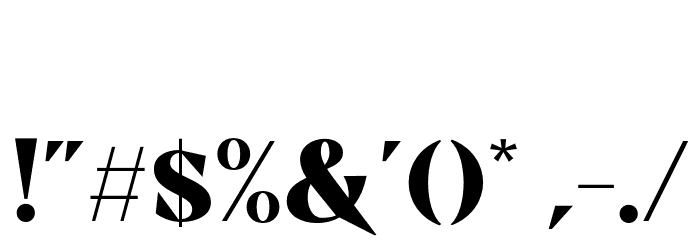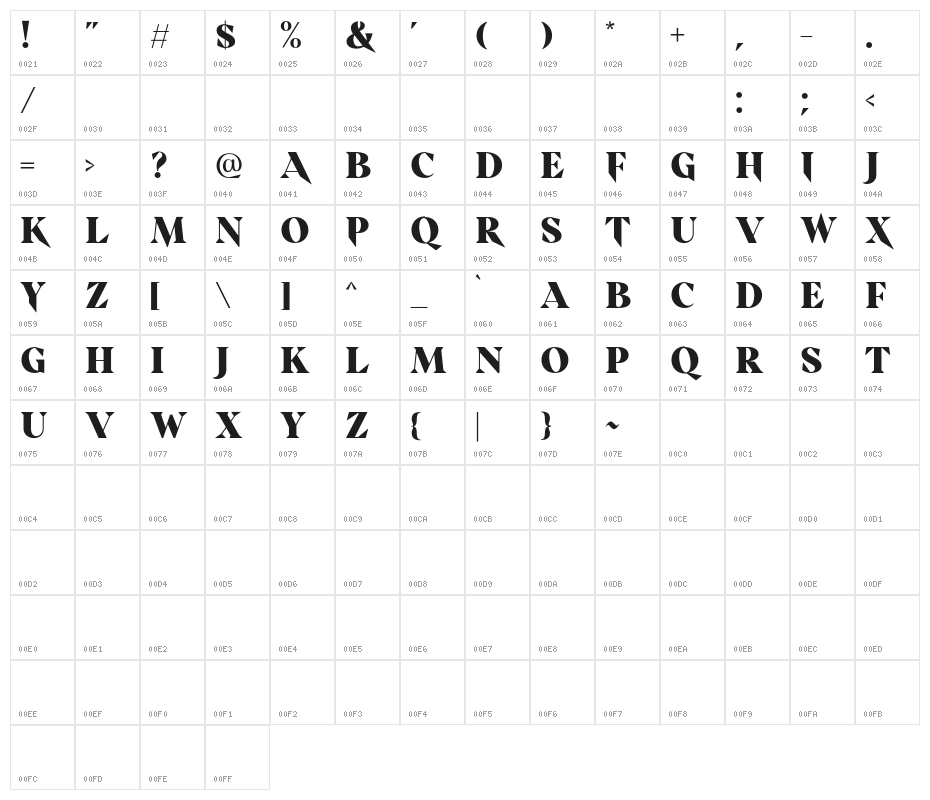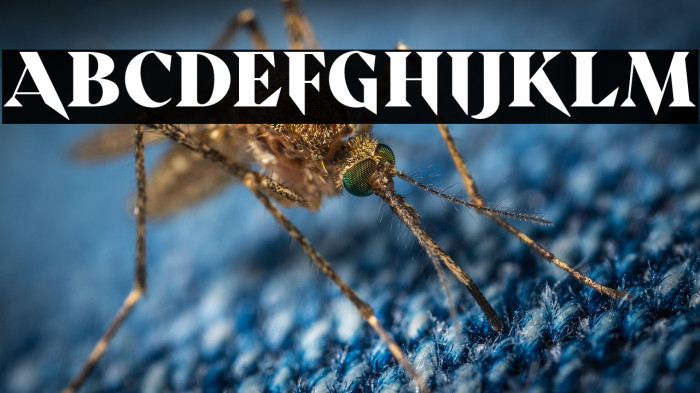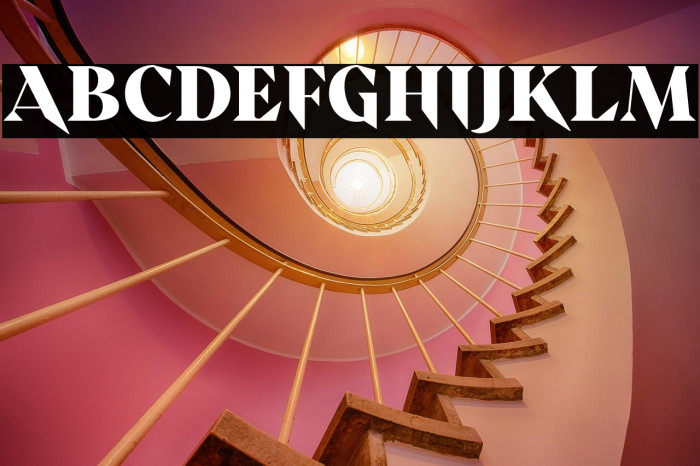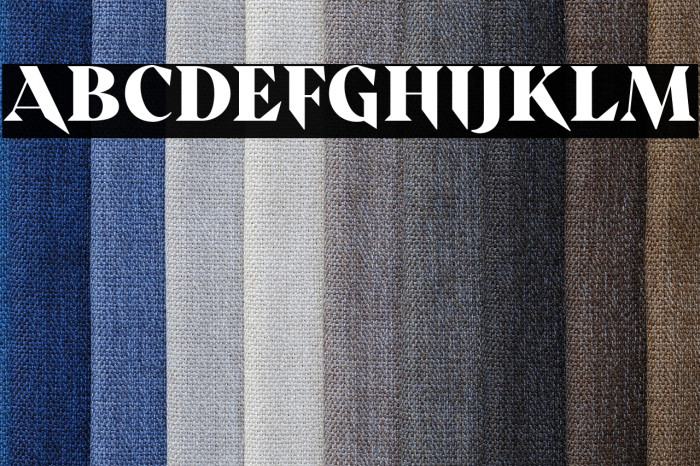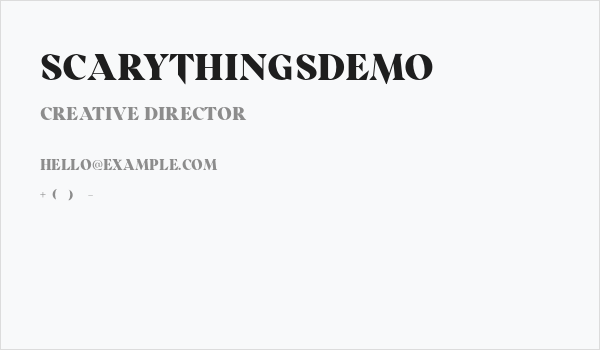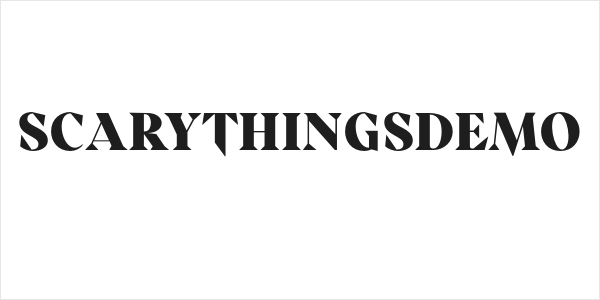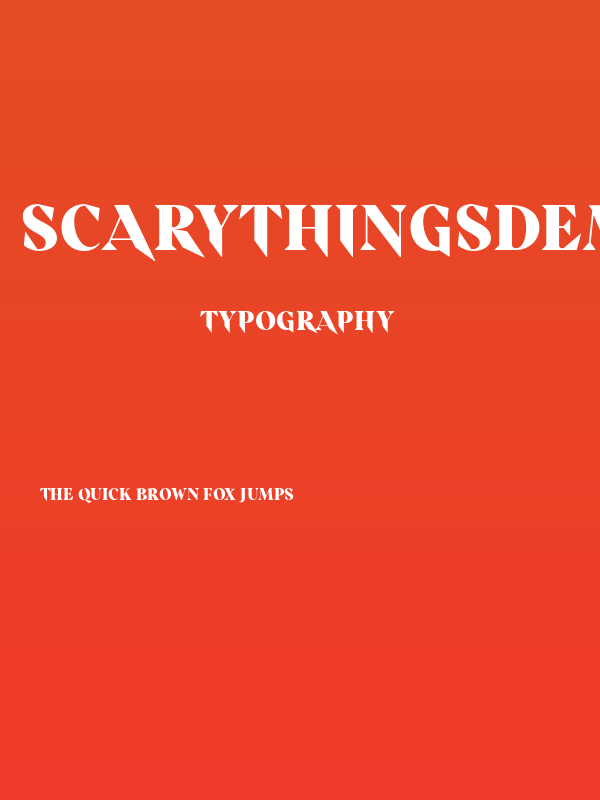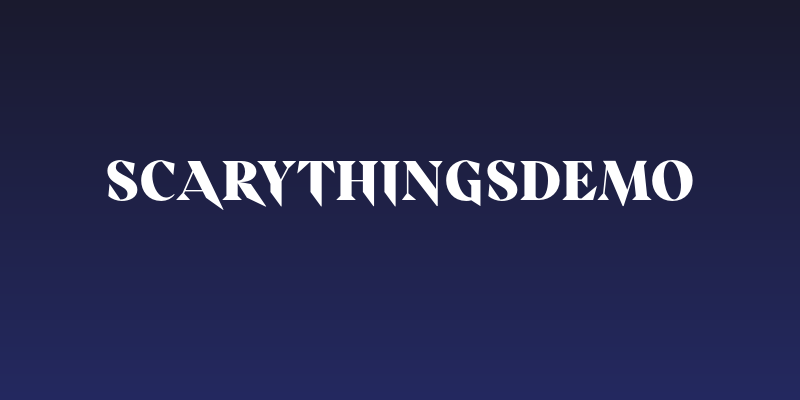
ScaryThingsDEMO Font
ScaryThingsDEMO Description
This font features a bold and dramatic style with sharp, angular serifs that give it a striking, edgy appearance. The uppercase letters are particularly prominent, with a strong presence that commands attention. The design incorporates high contrast between thick and thin strokes, enhancing its boldness and making it ideal for impactful headlines or titles. The characters are tightly spaced, adding to the intensity and compactness of the text. Special characters maintain the same bold and angular aesthetic, ensuring consistency across all glyphs. This font is perfect for projects that require a strong, authoritative look, such as horror-themed designs, posters, or branding that aims to convey power and intensity.
| Proposed Projects | Horror-themed designs, movie posters, branding, and any project requiring a strong, impactful typeface. |